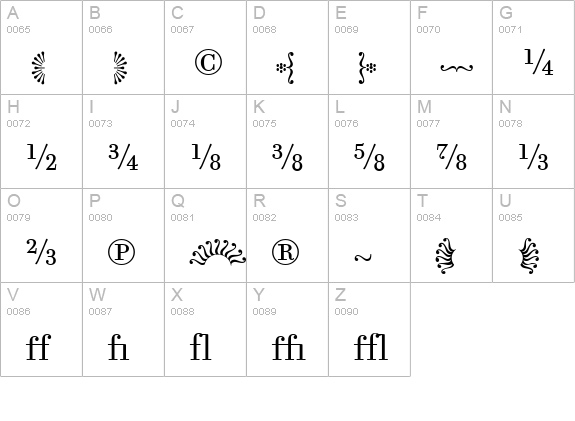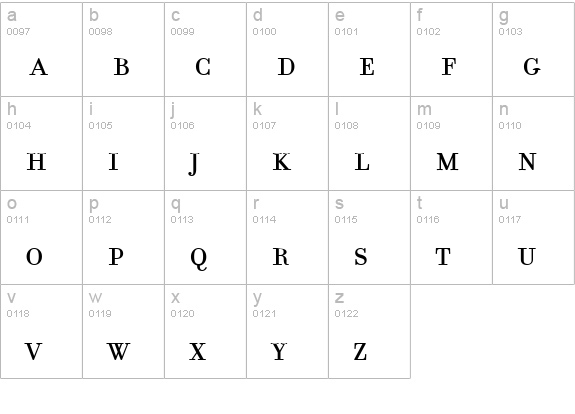
FilosofiaFractions Regular Font Details
FilosofiaFractions Regular is the standard, neutral variant in the FilosofiaFractions typeface family \xE2\x80\x94 well suited to general body text, paragraphs, and standard typographic work.
FilosofiaFractions Regular font is a versatile typeface that combines elegance with practicality. Its clean lines and balanced proportions make it ideal for a wide range of design projects, from elegant invitations to professional presentations. The unique fractions included in this font set it apart from others, allowing for precise and visually appealing typographic compositions. Best of all, FilosofiaFractions Regular font is available for free download at FontsMarket.com. This means that you can easily incorporate this sophisticated typeface into your designs without any cost involved. Don't miss out on the opportunity to enhance your projects with this beautiful and functional font - download FilosofiaFractions Regular today!